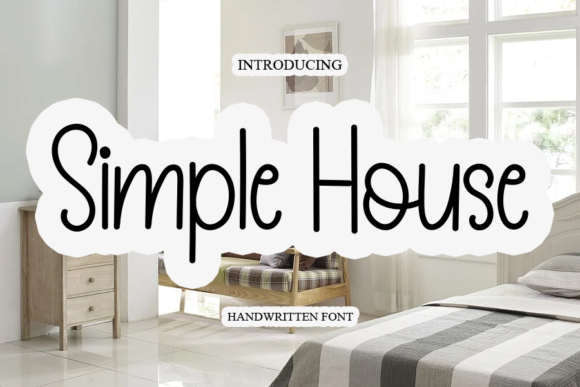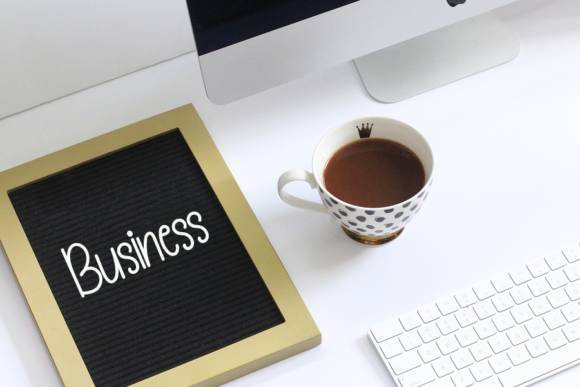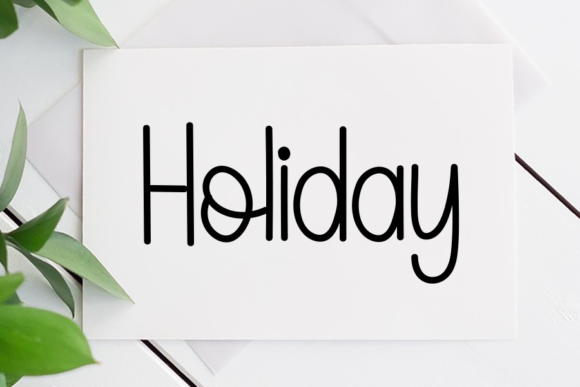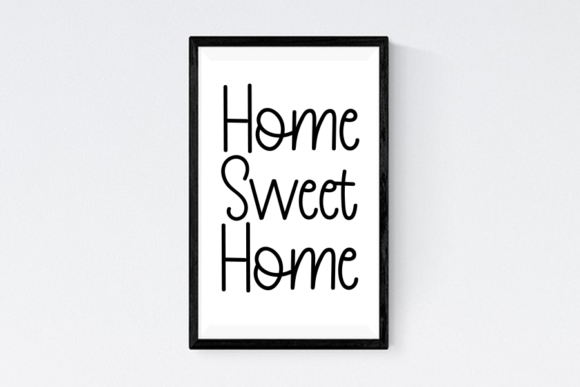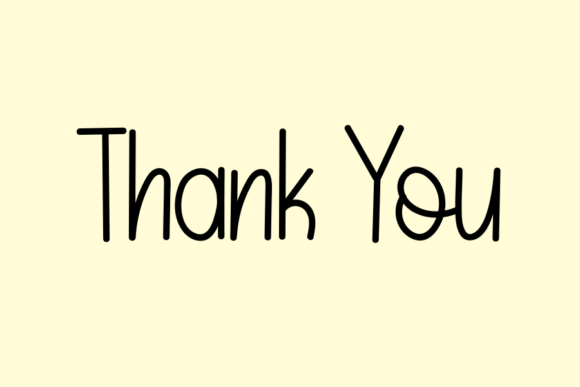
Simple House Font
About Simple House Font
Simple House is a delicate handwritten font carefully created with a touch of elegance. Whether you’re looking for fonts for Instagram or calligraphy scripts for DIY projects, this font will turn any creative idea into a true piece of art!